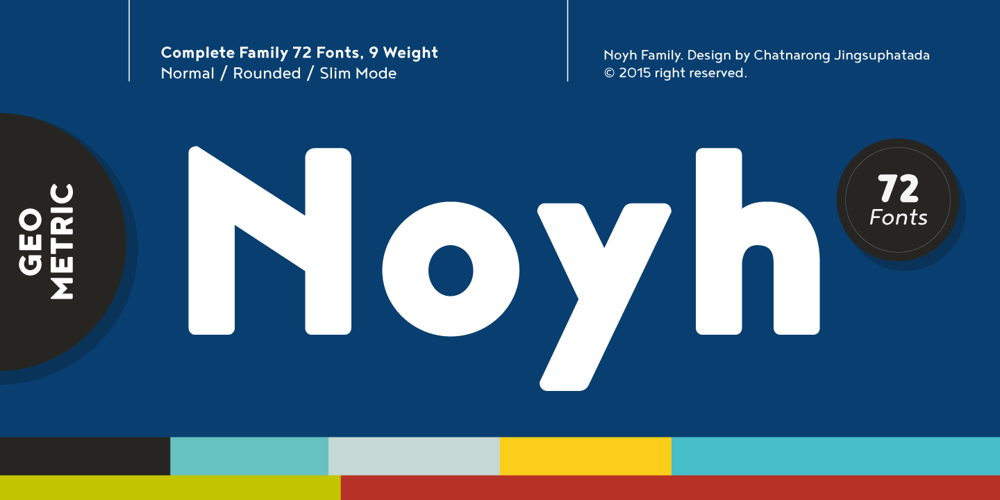
Noyh
Noyh font
Noyh Font Family was designed by Chatnarong Jingsuphatada and published by Typesketchbook. Noyh contains 72 styles and family package options. Noyh is a modern geometric font family that is based on research of similar typefaces of the 1990s and 2000s. Based on that research, font designer Chatnarong Jingsuphatada created a design whose main purpose is to perform equally well in as many environments as possible. Noyh offers a geometric structure with smooth corners, giving it great legibility and making it clean and friendly. As a result, Noyh works well both in print and on screen; it can be used freely for e-books and mobile applications and is perfect for headlines, banners, posters, web-sites, magazines, etc. Perhaps the greatest advantage of Noyh is the stunning number of fonts it includes. There are no less than 72 fonts, each containing over 350 glyphs. The family has 4 formats – Normal, Rounded, Slim and Slim Rounded. Each format is supplied in 9 weights – from Hairline to Black with their respective italics. The individual fonts work very harmoniously with one another, giving the potential user a variety of options. The Noyh font family was created by Thai designer Chatnarong Jingsuphatada and is released by the Typesketchbook type foundry. Chatnarong intends to add an additional member to the family – Noyh A – that will include ornaments, undoubtedly making the Noyh family even more versatile and multi-functional. In the meantime, please take a look at his other typographical projects: Delm, Mairy, Tolyer, Abula.